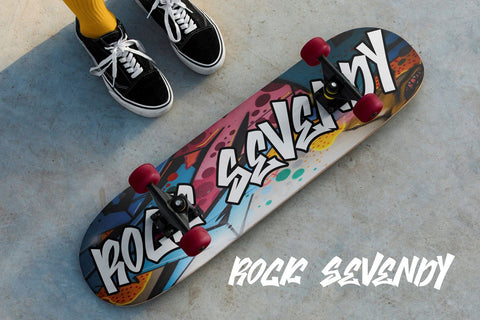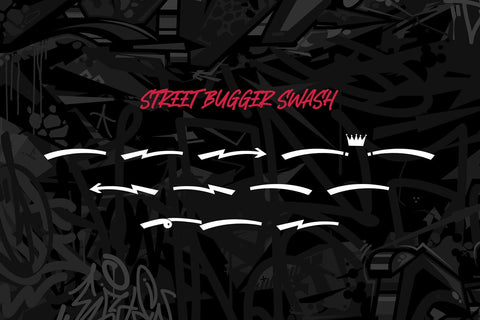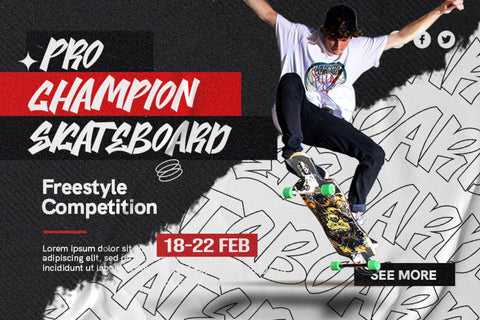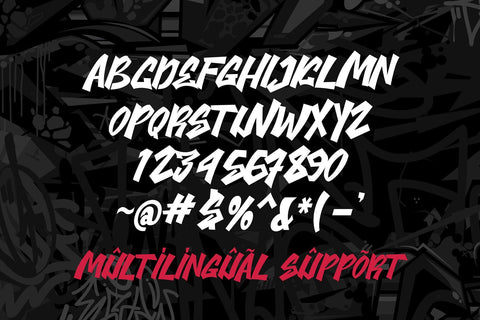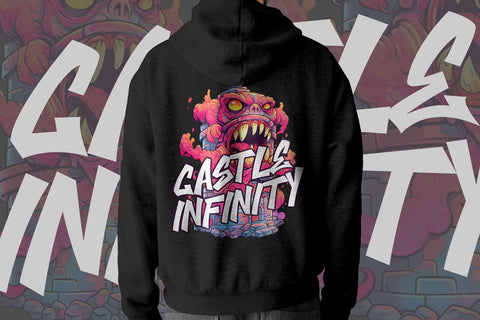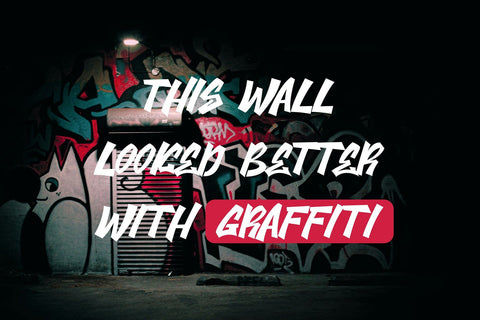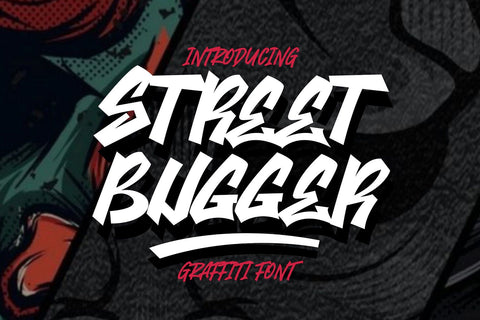
Street Bugger - Swash Graffiti Font
"Street Bugger" is a graffiti font that incorporates swash characters. Graffiti fonts typically have a bold and expressive style, and the addition of swash characters introduces decorative elements or flourishes, enhancing the font's artistic and dynamic qualities. This font is well-suited for projects that seek an urban and edgy typographic style with a touch of flair provided by the swash characters. It could be an excellent choice for street art-inspired designs, posters, or any creative project where a bold and expressive graffiti font is desired.
- Graffiti Characters looks